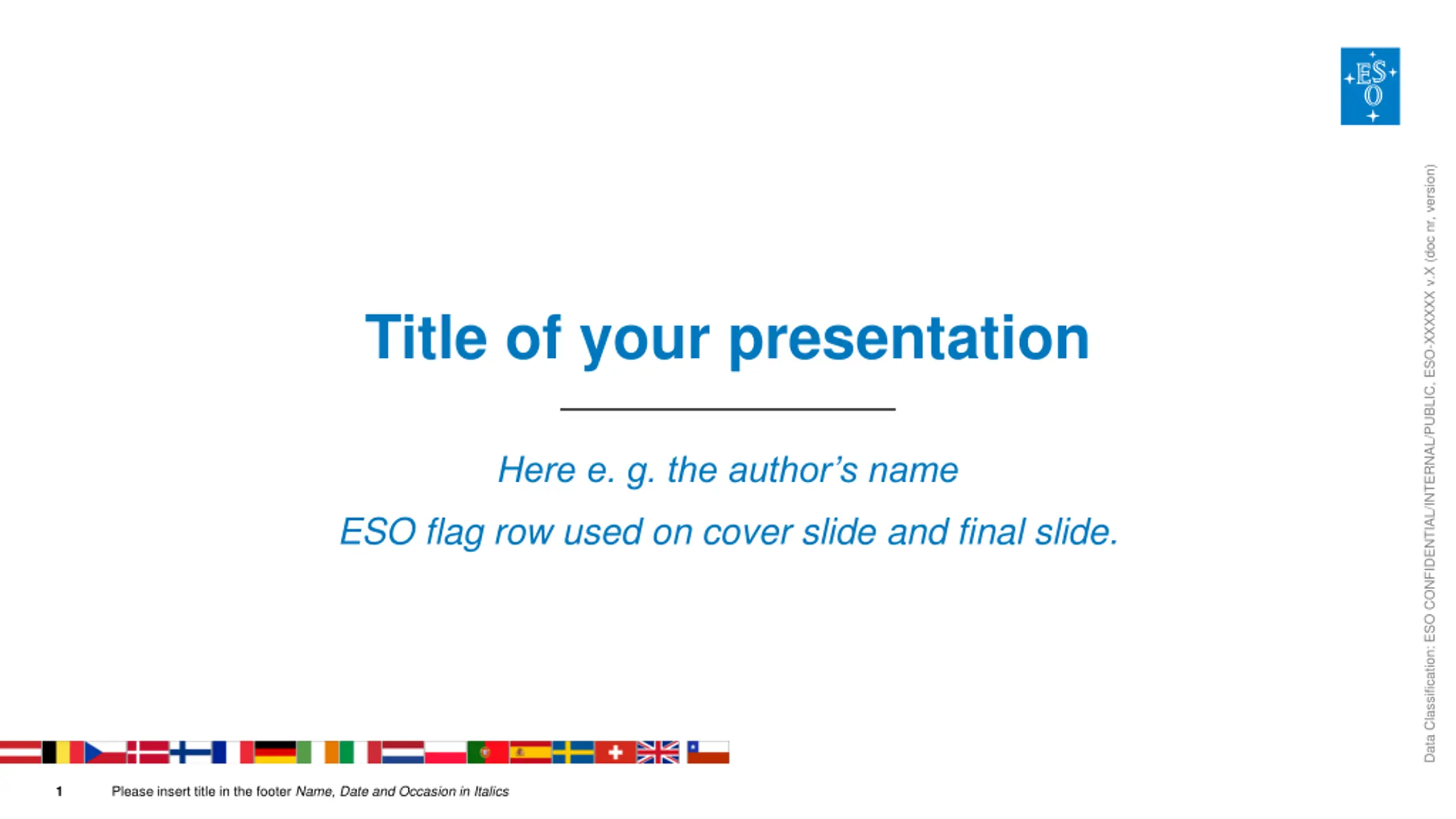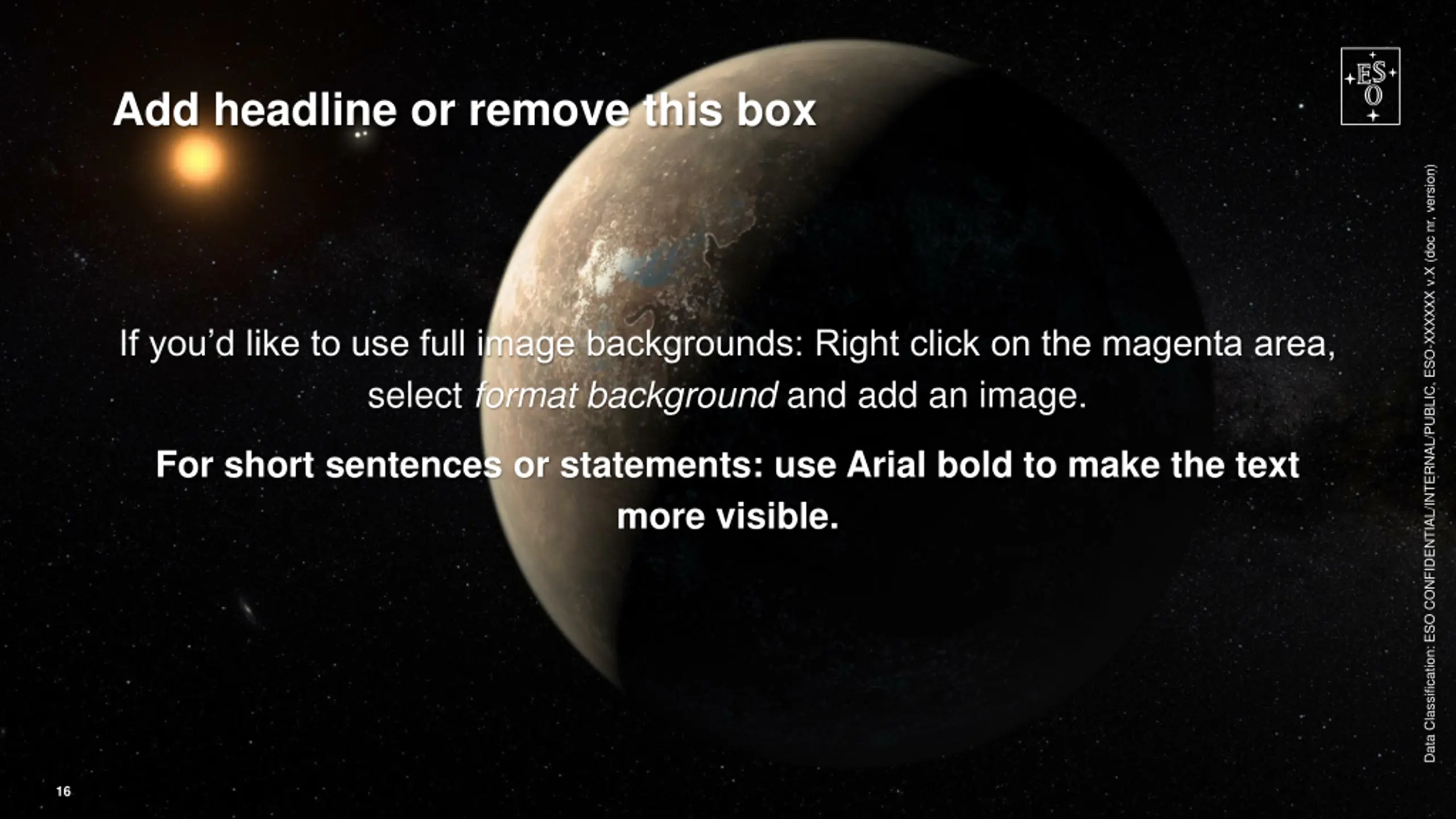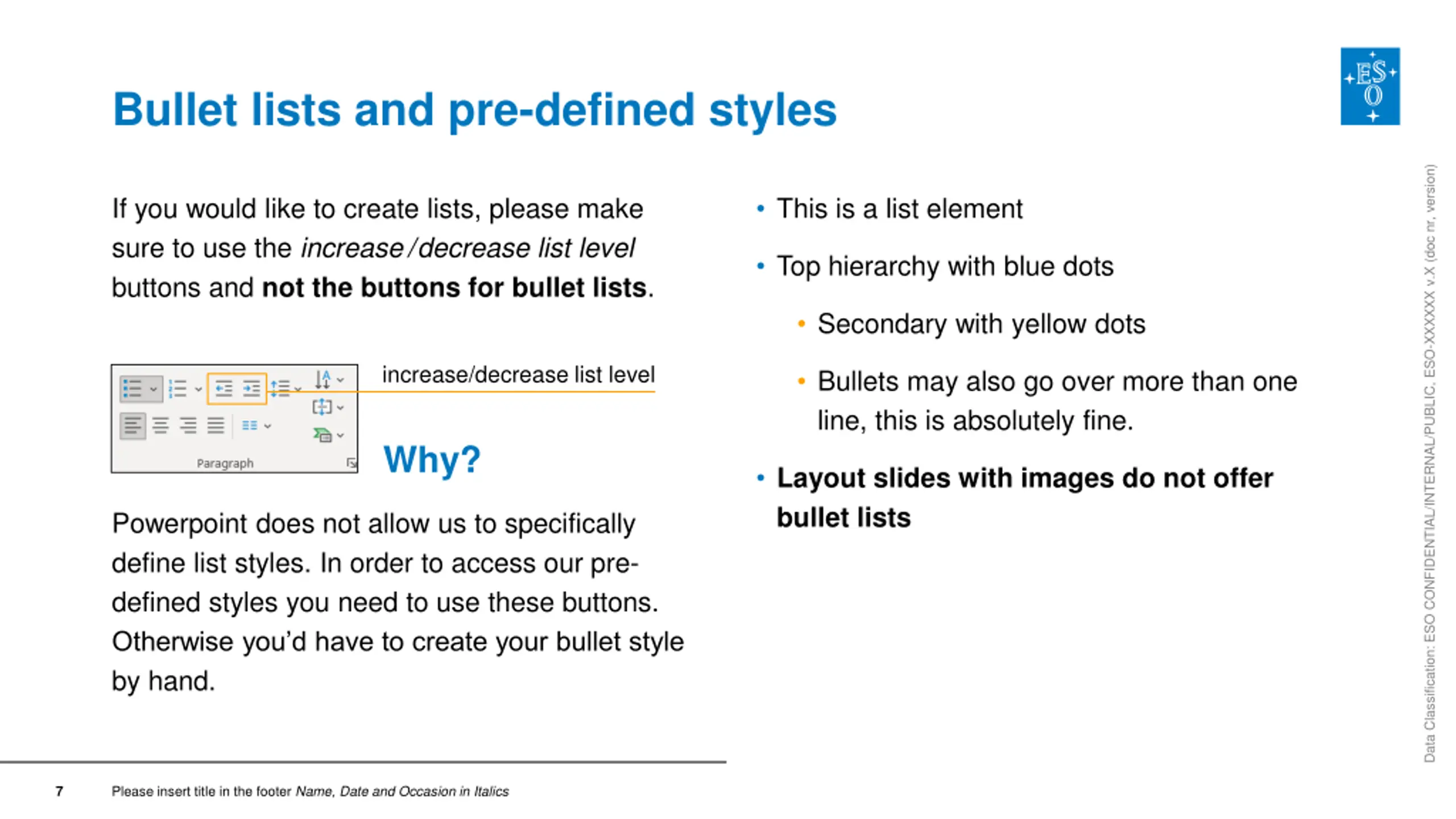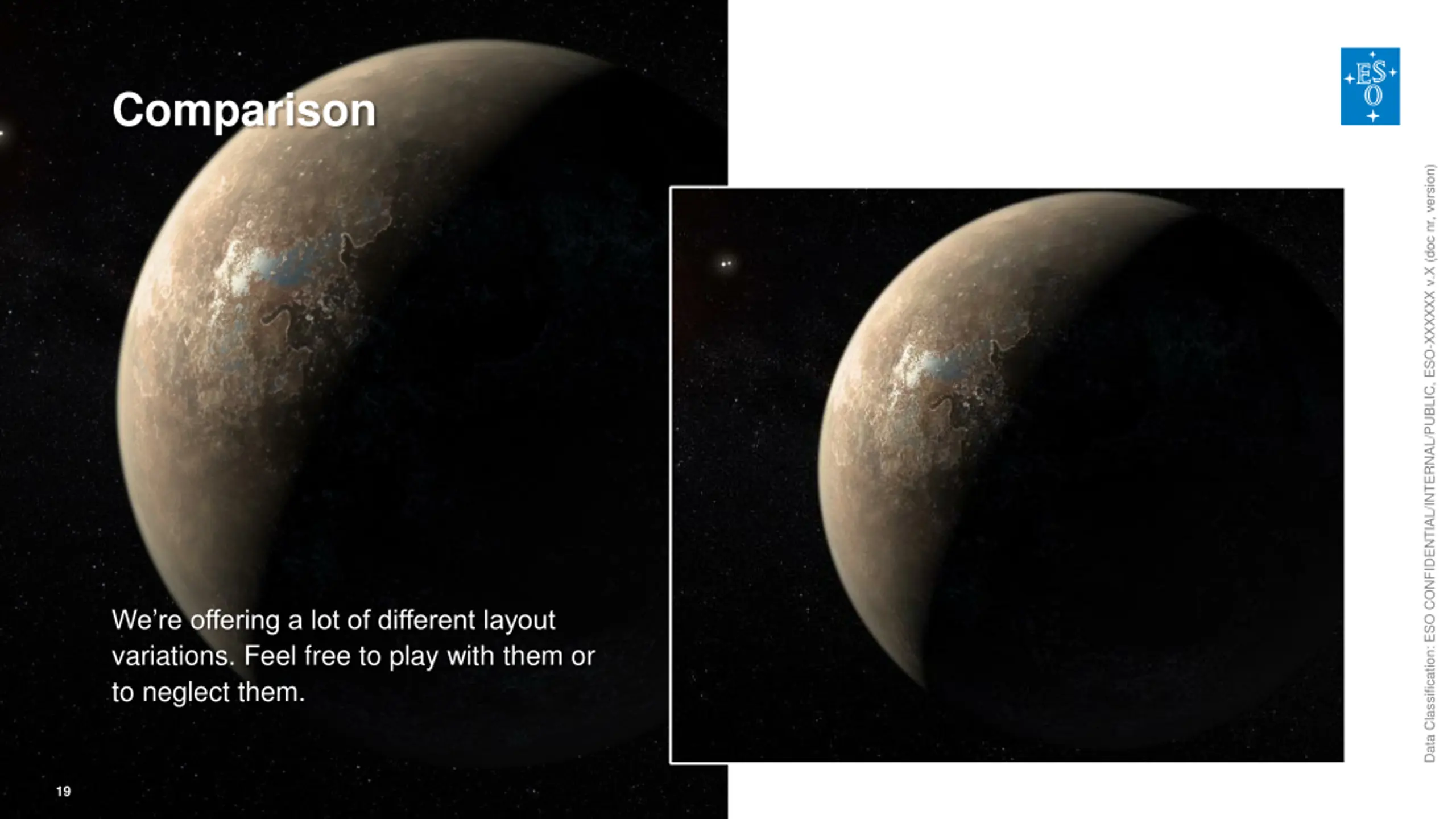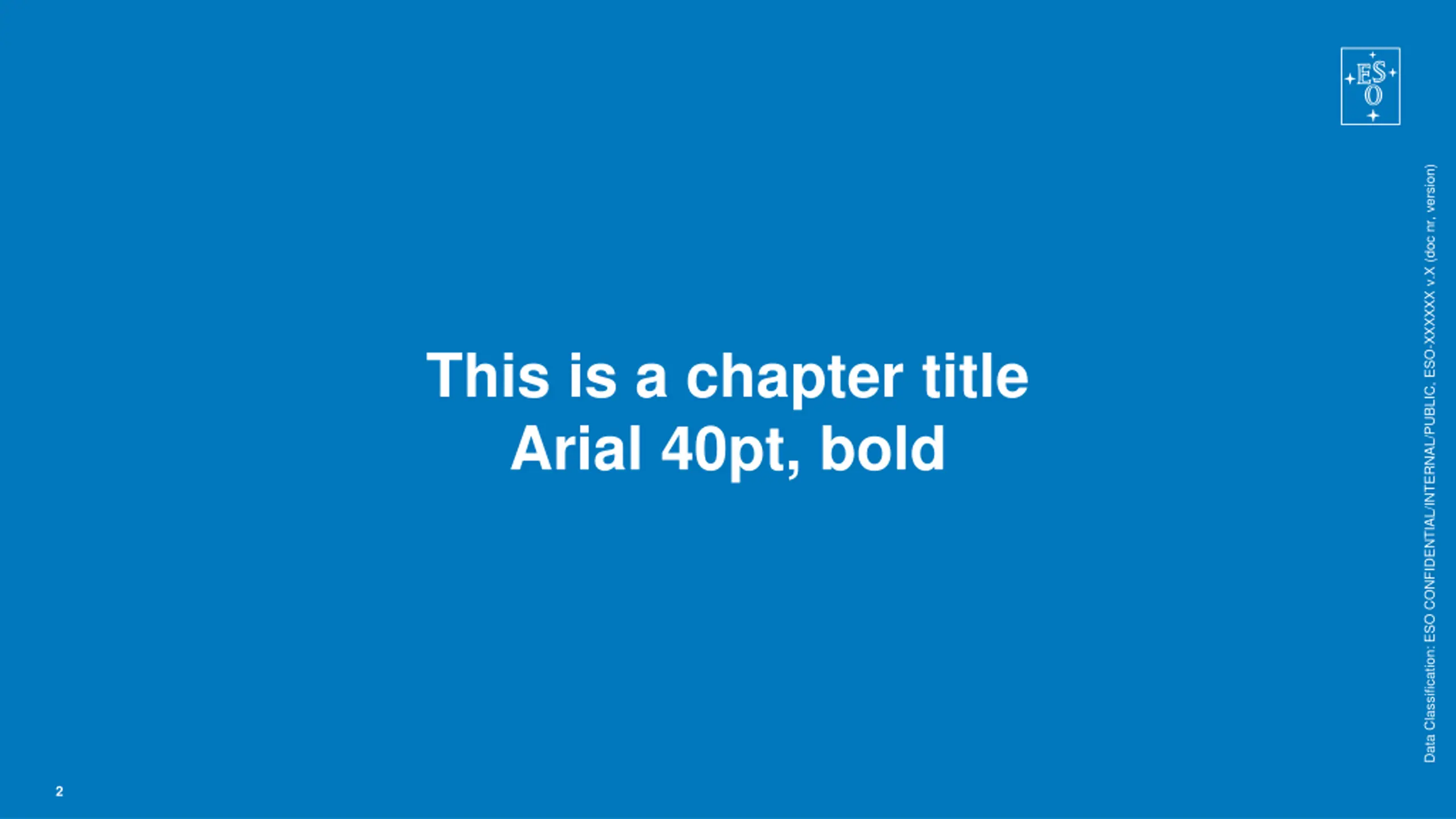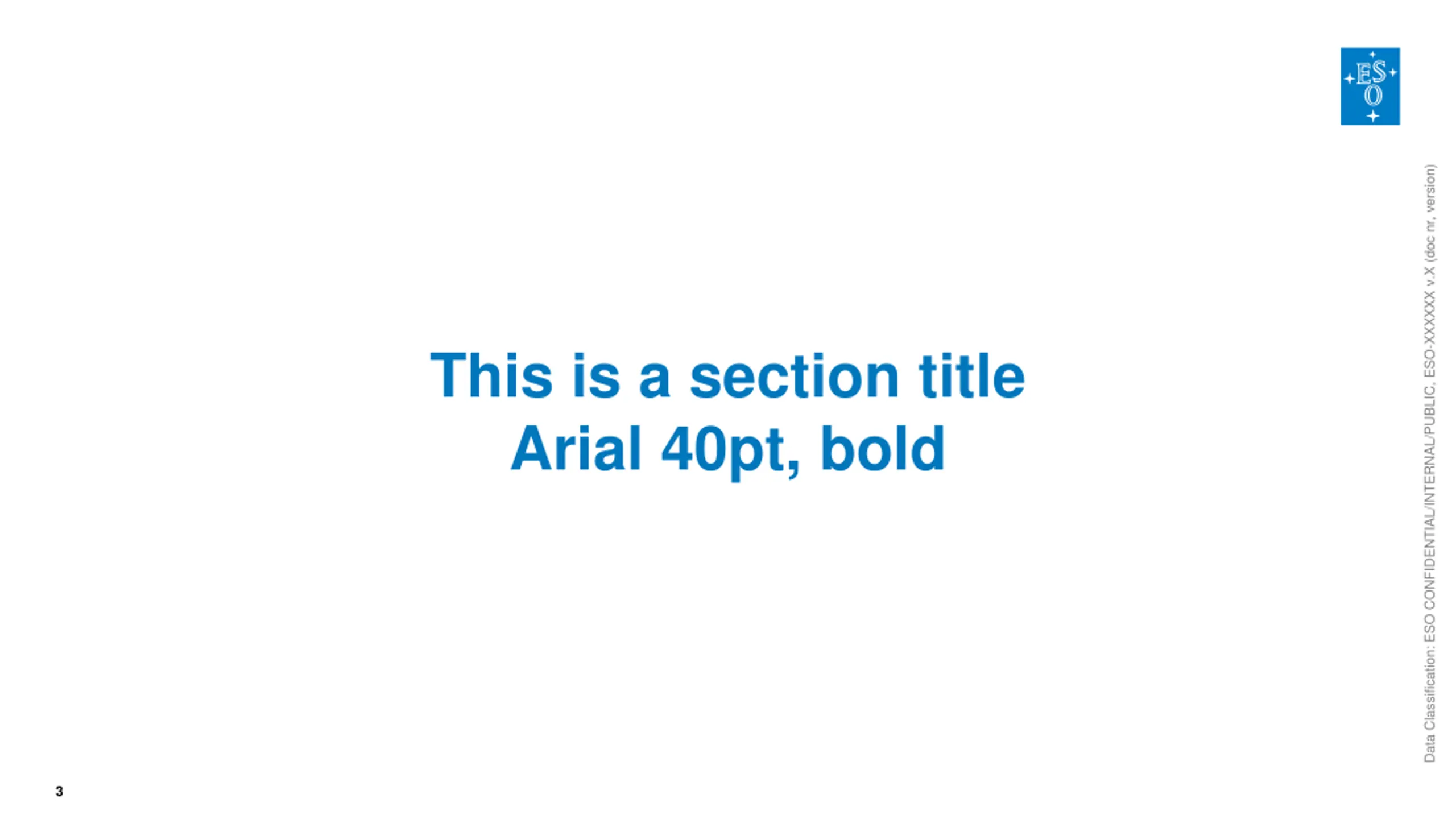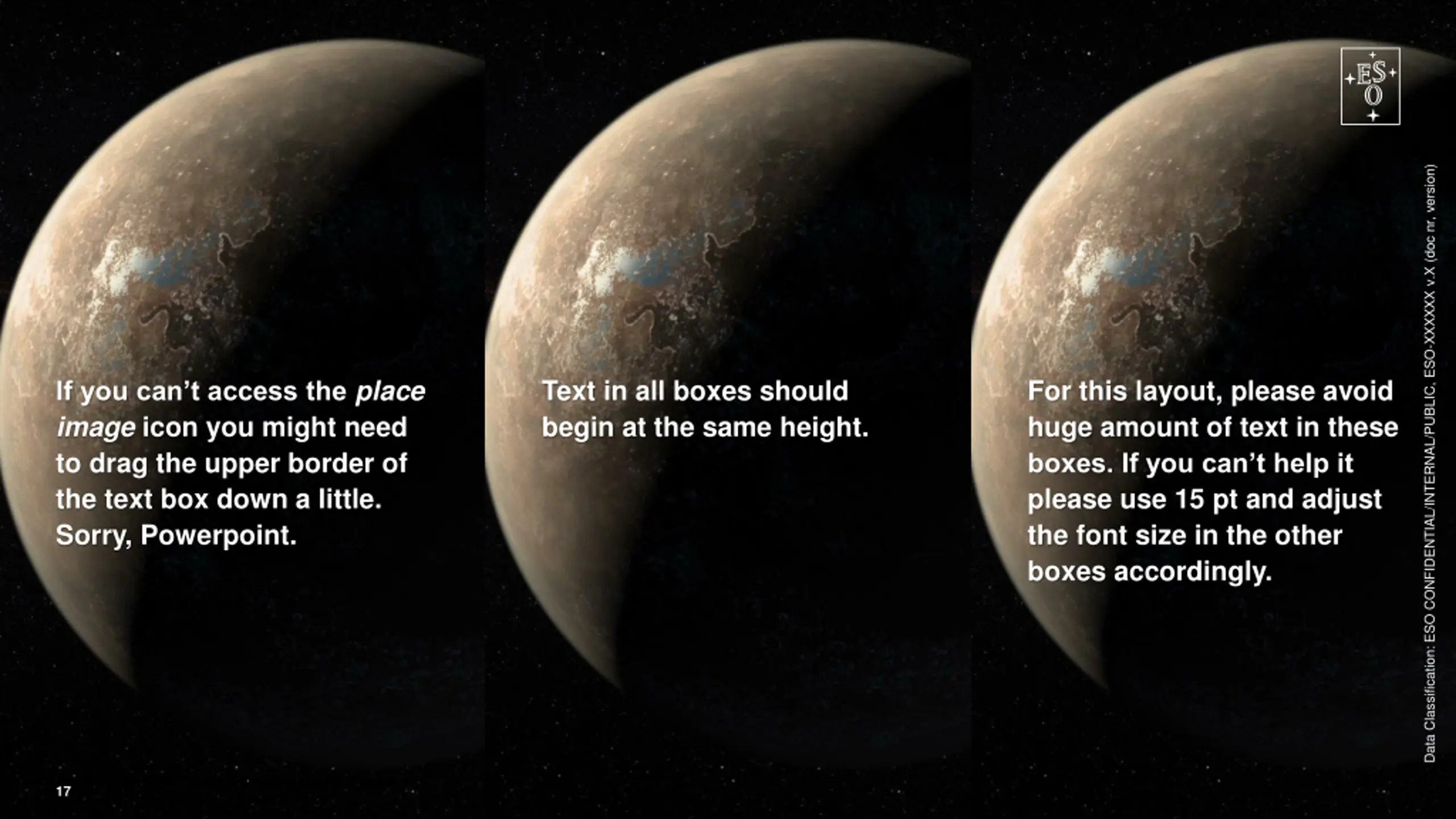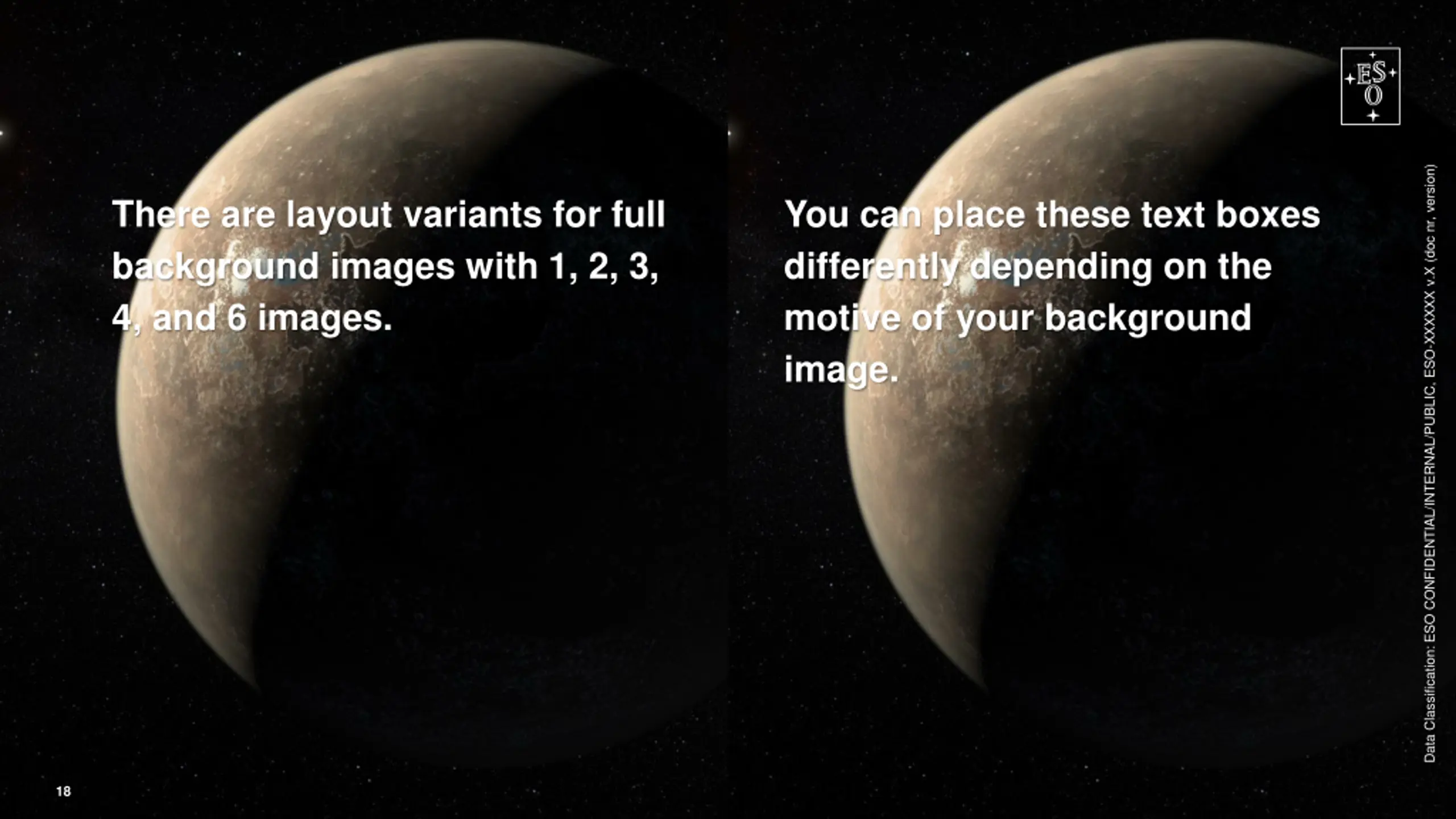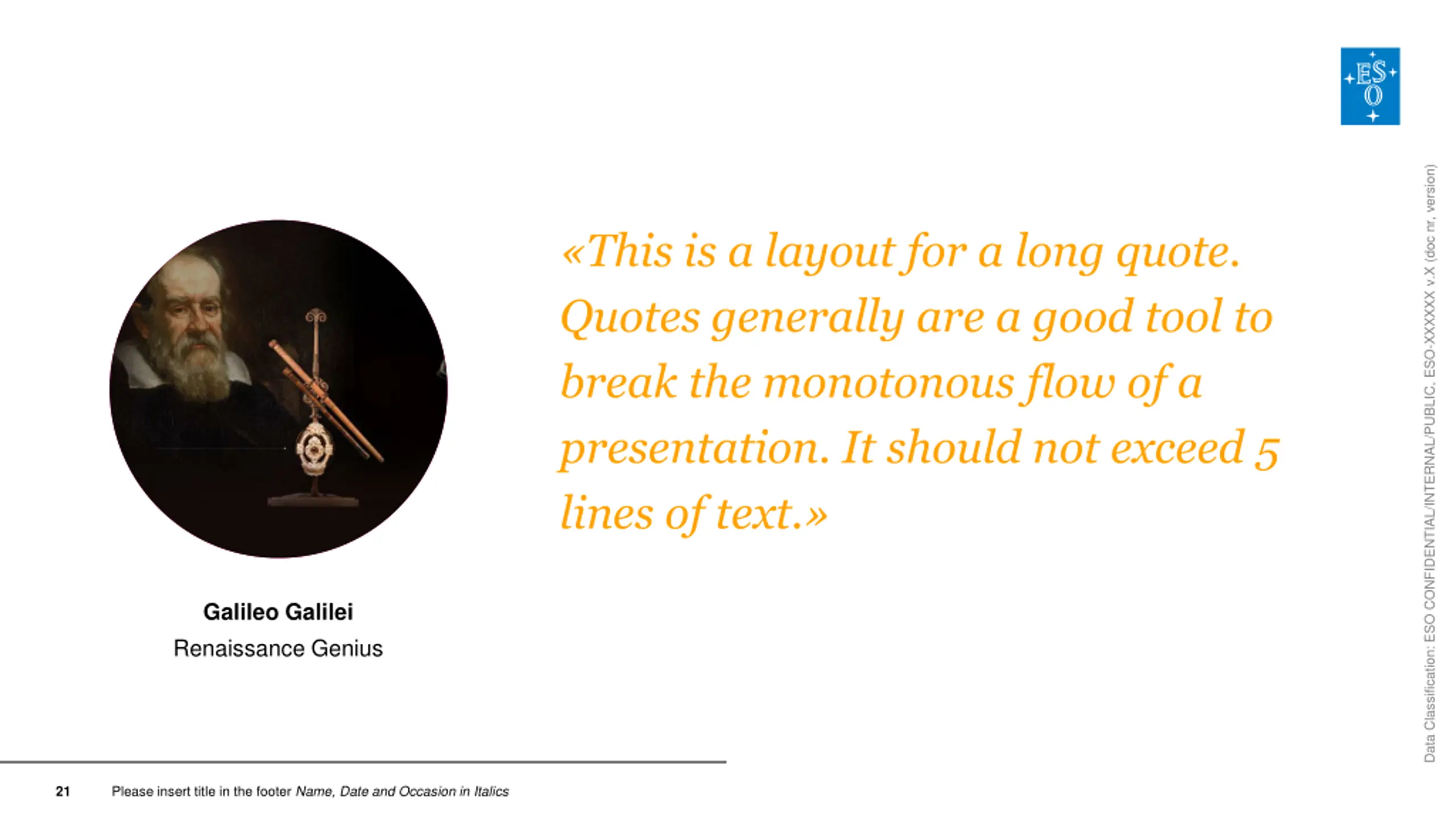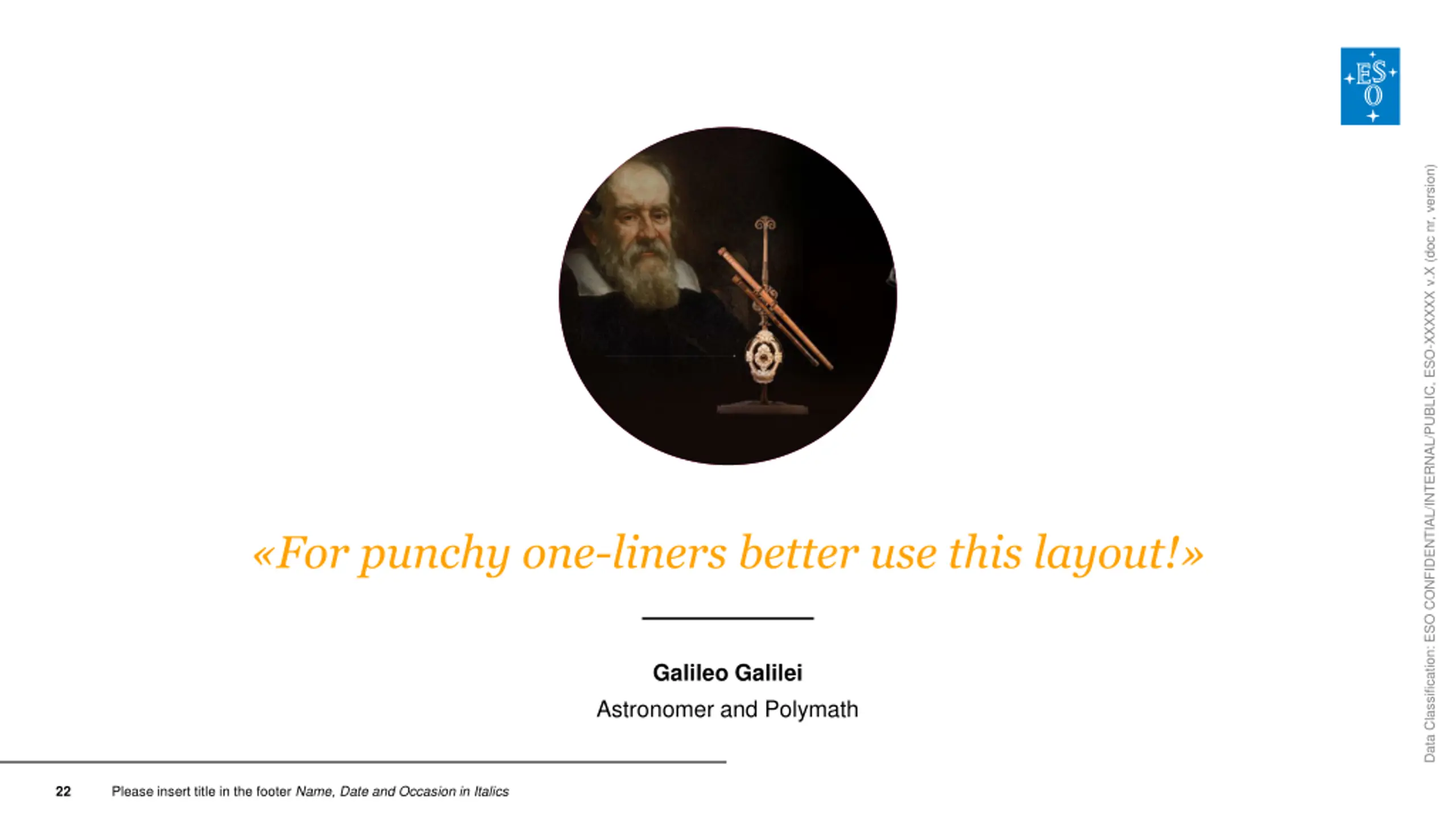
Effective Layouts and Fonts for a Professional Presentation
Explore the optimal fonts, layouts, and classifications for your presentation slides. Learn how to create impactful designs while maintaining readability and visual appeal. Discover different layout arrangements and font hierarchies for a polished and engaging presentation experience.
Data Classification: ESO CONFIDENTIAL/INTERNAL/PUBLIC, ESO-XXXXXX v.X (doc nr, version) Title of your presentation Here e. g. the author s name ESO flag row used on cover slide and final slide. Please insert title in the footer Name, Date and Occasion in Italics 1
Data Classification: ESO CONFIDENTIAL/INTERNAL/PUBLIC, ESO-XXXXXX v.X (doc nr, version) This is a chapter title Arial 40pt, bold 2
Data Classification: ESO CONFIDENTIAL/INTERNAL/PUBLIC, ESO-XXXXXX v.X (doc nr, version) This is a section title Arial 40pt, bold 3
Font hierarchy content slides Data Classification: ESO CONFIDENTIAL/INTERNAL/PUBLIC, ESO-XXXXXX v.X (doc nr, version) Arial 30 pt bold, ESO blue: top headline h1 Arial 24 pt bold, ESO blue: secondary headline h2 Arial 24 pt bold: only for emphasize on top of images Arial 18 pt bold: for 3rd level headlines or to stress something Arial 18 pt regular: for body text Arial 15 pt regular: for smaller text when you lack the space Arial 12 pt regular: for descriptive text alongside images here it gets difficult to read from afar, so don t use this for crucial information Arial 12 pt italic: for image captions Georgia 24 pt italic, ESO orange: This could be a quote! Please insert title in the footer Name, Date and Occasion in Italics 4
Slide layouts What a selection! This is a subhead for an emotional addition to the headline Data Classification: ESO CONFIDENTIAL/INTERNAL/PUBLIC, ESO-XXXXXX v.X (doc nr, version) There is a variety of different layout arrangements available. This is the naming convention: Columns: 1T: One text column, or respectively 2T, 3T, 1I: One image, or respectively 2I, 3I, 1ST: with yellow subhead and one text column Backgrounds: WB white background, BB blue background, IB image background CL: Creative Layouts Additional layouts for: cover, titles (chapter/section), quotes, thank you, contact details, Please insert title in the footer Name, Date and Occasion in Italics 5
Headline h1 or secondary headline h2 Data Classification: ESO CONFIDENTIAL/INTERNAL/PUBLIC, ESO-XXXXXX v.X (doc nr, version) This is a 2-column layout. Please use this if you have a lot of running text. It is easier to read shorter lines. You can use bold to emphasize passages. Please try not to overload your slides with content. If possible, simply use more slides. Paragraphs have an automatic offset. If you don t like that please use shift + enter for a line break. Generally, you should use left-aligned text for best readability. Please make sure to leave some safe space between your content and the footer: Please insert title in the footer Name, Date and Occasion in Italics 6
Bullet lists and pre-defined styles Data Classification: ESO CONFIDENTIAL/INTERNAL/PUBLIC, ESO-XXXXXX v.X (doc nr, version) If you would like to create lists, please make sure to use the increase/decrease list level buttons and not the buttons for bullet lists. This is a list element Top hierarchy with blue dots Secondary with yellow dots increase/decrease list level Bullets may also go over more than one line, this is absolutely fine. Why? Layout slides with images do not offer bullet lists Powerpoint does not allow us to specifically define list styles. In order to access our pre- defined styles you need to use these buttons. Otherwise you d have to create your bullet style by hand. Please insert title in the footer Name, Date and Occasion in Italics 7
Footer and Data Classification Data Classification: ESO CONFIDENTIAL/INTERNAL/PUBLIC, ESO-XXXXXX v.X (doc nr, version) To access the menu, go to Insert > Header & Footer Here you can define: Footer Insert your presentation specs Optional: Switch Name, Date, Occasion to italics this has to be done on every slide! Data Classification Adjust to what applies, delete the rest Click Apply to all Please insert title in the footer Name, Date and Occasion in Italics 8
Footer and Data Classification Data Classification: ESO CONFIDENTIAL/INTERNAL/PUBLIC, ESO-XXXXXX v.X (doc nr, version) Slide layouts with image background do not include a footer for visual reasons. The same goes for chapter and section titles. Data Classification and slide numbers are required on every slide. This is why they will stay on. Should you require a footer on every single slide, please use only slide layouts with footer. If you really require a footer on top of an image, copy and paste footer and dividing line from another slide and switch the colour to white (or copy from a blue background slide). Please insert title in the footer Name, Date and Occasion in Italics 9
Slide for factual content or summaries Data Classification: ESO CONFIDENTIAL/INTERNAL/PUBLIC, ESO-XXXXXX v.X (doc nr, version) The blue background creates a visual break to the rest of your presentation. Use this to emphasize things. Please insert title in the footer Name, Date and Occasion in Italics 10
For experts Data Classification: ESO CONFIDENTIAL/INTERNAL/PUBLIC, ESO-XXXXXX v.X (doc nr, version) Switch on the grid: ESO Colours & Shades In the top bar menu go to View and check the Guides checkbox. Arrange your elements along the grid. Safe space should remain two grid widths to each side. Headlines are aligned with the ESO logo You can create your own infographics by either using our dedicated 1_ST+WB UNI template powerpoints or by using Powerpoint s built in features and add the ESO colour palette to them. Please insert title in the footer Name, Date and Occasion in Italics 11
Example of a ppt chart Using the layout slide 1_ST+WB UNI Data Classification: ESO CONFIDENTIAL/INTERNAL/PUBLIC, ESO-XXXXXX v.X (doc nr, version) Chart title Bullet 4 Bullet 3 Bullet 2 Bullet 1 0 1 2 3 4 5 6 Set 3 Set 2 Set 1 Please insert title in the footer Name, Date and Occasion in Italics 12
Image slides Data Classification: ESO CONFIDENTIAL/INTERNAL/PUBLIC, ESO-XXXXXX v.X (doc nr, version) This is to highlight one specific image and include a longer text. To exchange an image: Right click on the image, select change image Add an image caption here. It may be right-aligned if caption is too short Please insert title in the footer Name, Date and Occasion in Italics 13
Options for more images Data Classification: ESO CONFIDENTIAL/INTERNAL/PUBLIC, ESO-XXXXXX v.X (doc nr, version) There are various slide layouts available for more images next to each other Lorem ipsum dolor sit amet, Don t let the magenta background of the template disturb you. Just click on the icon and add an image. consectetuer adipiscing elit. Aenean commodo ligula eget dolor. Please insert title in the footer Name, Date and Occasion in Italics 14
Image comparison Data Classification: ESO CONFIDENTIAL/INTERNAL/PUBLIC, ESO-XXXXXX v.X (doc nr, version) You could use this layout to compare two images or enlarge a section of the main image. 15
Add headline or remove this box Data Classification: ESO CONFIDENTIAL/INTERNAL/PUBLIC, ESO-XXXXXX v.X (doc nr, version) If you d like to use full image backgrounds: Right click on the magenta area, select format background and add an image. For short sentences or statements: use Arial bold to make the text more visible. 16
Data Classification: ESO CONFIDENTIAL/INTERNAL/PUBLIC, ESO-XXXXXX v.X (doc nr, version) If you can t access the place image icon you might need to drag the upper border of the text box down a little. Sorry, Powerpoint. Text in all boxes should begin at the same height. For this layout, please avoid huge amount of text in these boxes. If you can t help it please use 15 pt and adjust the font size in the other boxes accordingly. Please insert title in the footer Name, Date and Occasion in Italics 17
Data Classification: ESO CONFIDENTIAL/INTERNAL/PUBLIC, ESO-XXXXXX v.X (doc nr, version) There are layout variants for full background images with 1, 2, 3, 4, and 6 images. You can place these text boxes differently depending on the motive of your background image. 18
Comparison Data Classification: ESO CONFIDENTIAL/INTERNAL/PUBLIC, ESO-XXXXXX v.X (doc nr, version) We re offering a lot of different layout variations. Feel free to play with them or to neglect them. 19
Gallery Data Classification: ESO CONFIDENTIAL/INTERNAL/PUBLIC, ESO-XXXXXX v.X (doc nr, version) 20
Data Classification: ESO CONFIDENTIAL/INTERNAL/PUBLIC, ESO-XXXXXX v.X (doc nr, version) This is a layout for a long quote. Quotes generally are a good tool to break the monotonous flow of a presentation. It should not exceed 5 lines of text. Galileo Galilei Renaissance Genius Please insert title in the footer Name, Date and Occasion in Italics 21
Data Classification: ESO CONFIDENTIAL/INTERNAL/PUBLIC, ESO-XXXXXX v.X (doc nr, version) For punchy one-liners better use this layout! Galileo Galilei Astronomer and Polymath Please insert title in the footer Name, Date and Occasion in Italics 22
Data Classification: ESO CONFIDENTIAL/INTERNAL/PUBLIC, ESO-XXXXXX v.X (doc nr, version) Quote with an image background. Lorem ipsum dolor sit amet, consectetuer adipi scing elit. 23